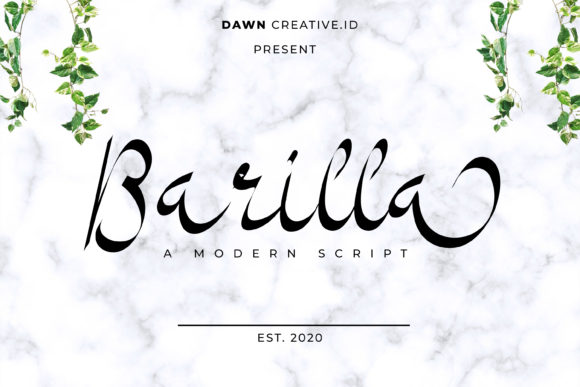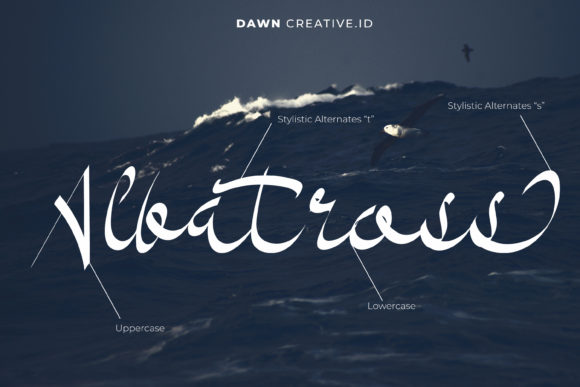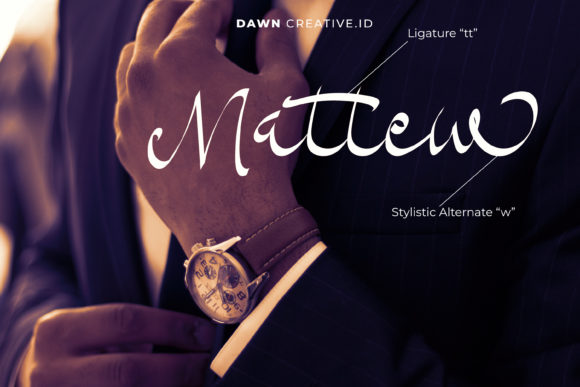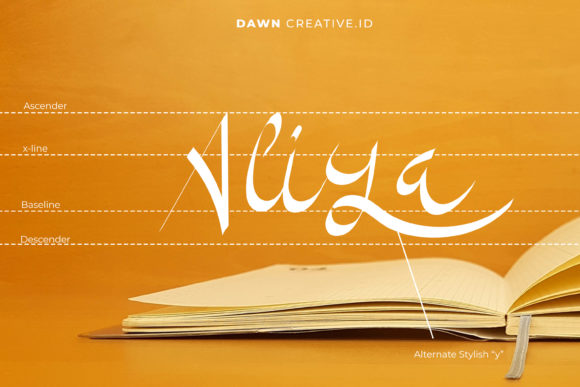
Barilla Font
About Barilla Font
Barilla is a lovely handwritten font, designed with the help of an outstanding and unique brush pen. Fall in love with its incredibly distinct and timeless style and use it to create spectacular designs!